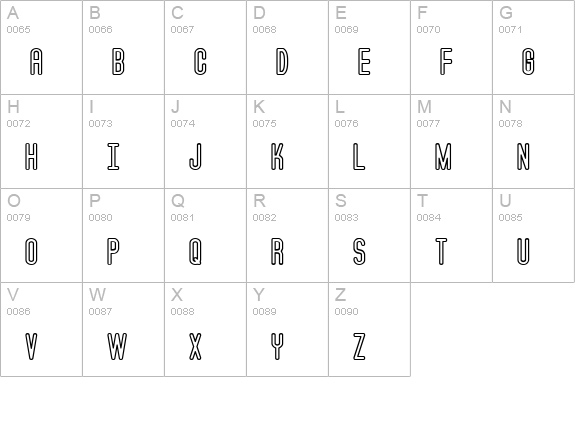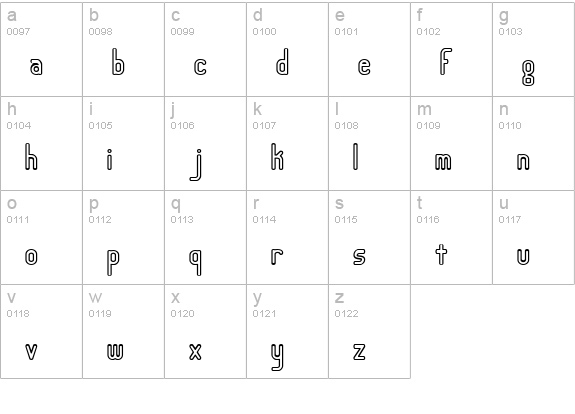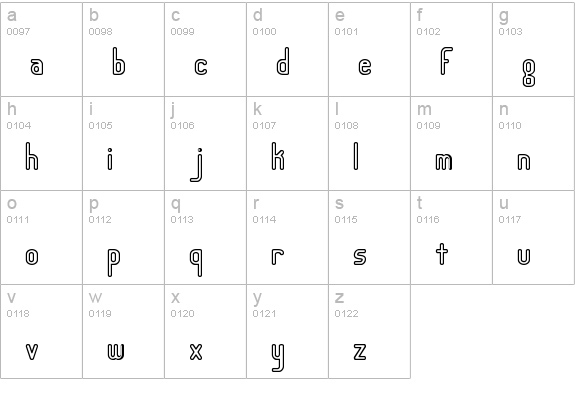
Lucid Type A Outline BRK font is a modern and stylish typeface that exudes sophistication and elegance. Its clean lines and sleek design make it perfect for a wide range of design projects, from branding to editorial design. This font is versatile and can be used for headlines, logos, posters, and more. The best part about Lucid Type A Outline BRK font is that it is available for free download at FontsMarket.com. This means that you can easily access this beautiful font and use it in your projects without any cost. Whether you are a professional designer or a hobbyist, this font is a great addition to your collection. With its bold and eye-catching appearance, Lucid Type A Outline BRK font is sure to make a statement in any design. Its modern and sleek look will help your projects stand out and leave a lasting impression on your audience. Download this font for free today and elevate your design projects to the next level.